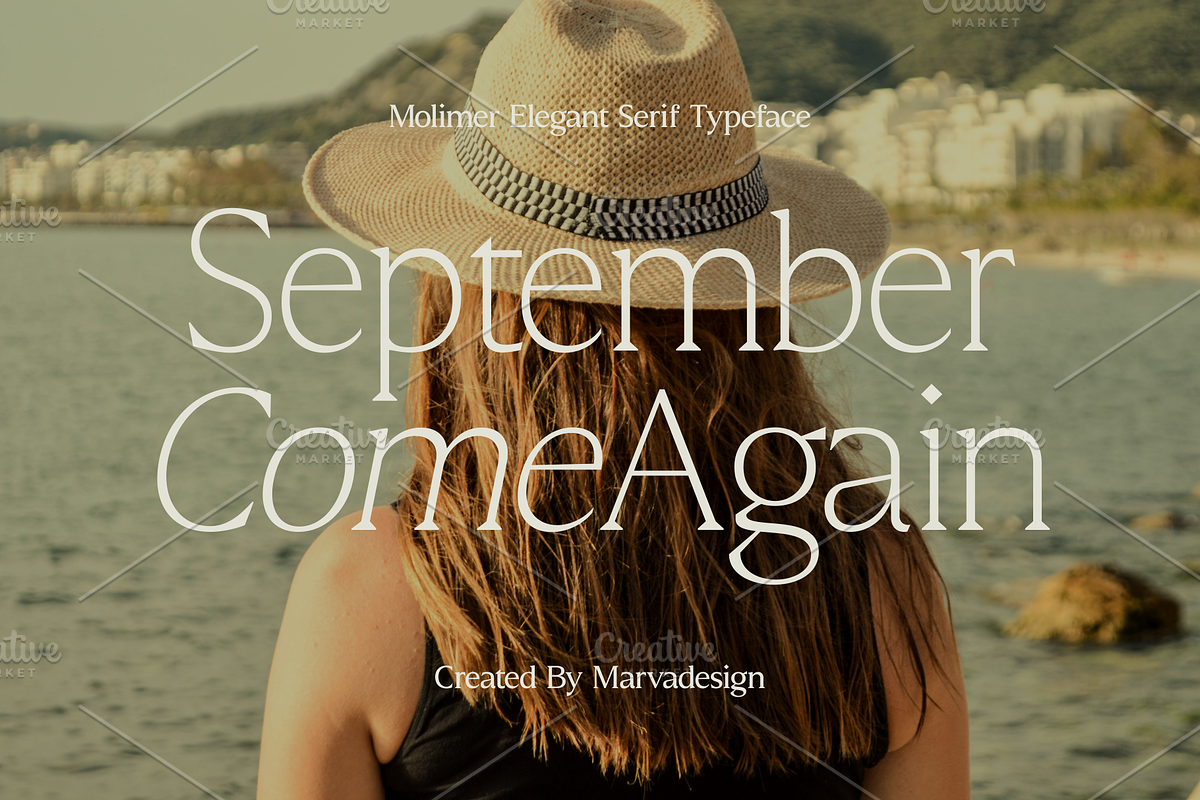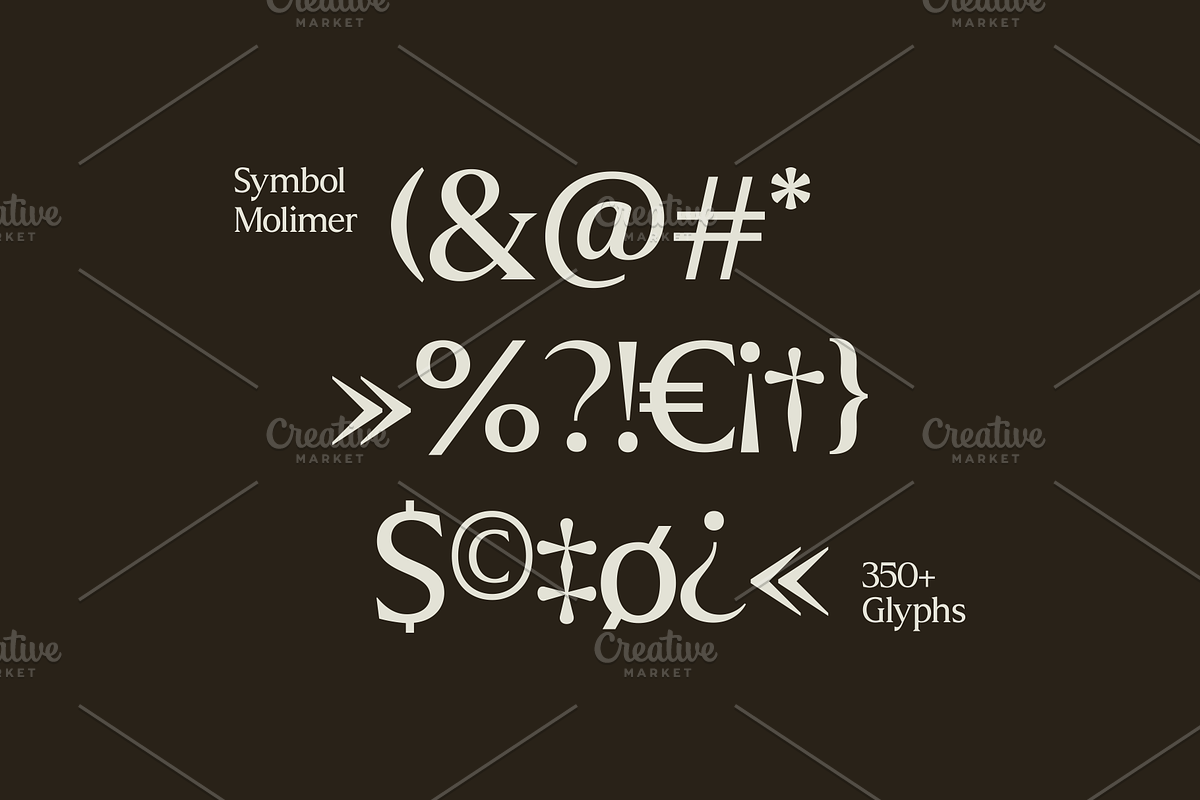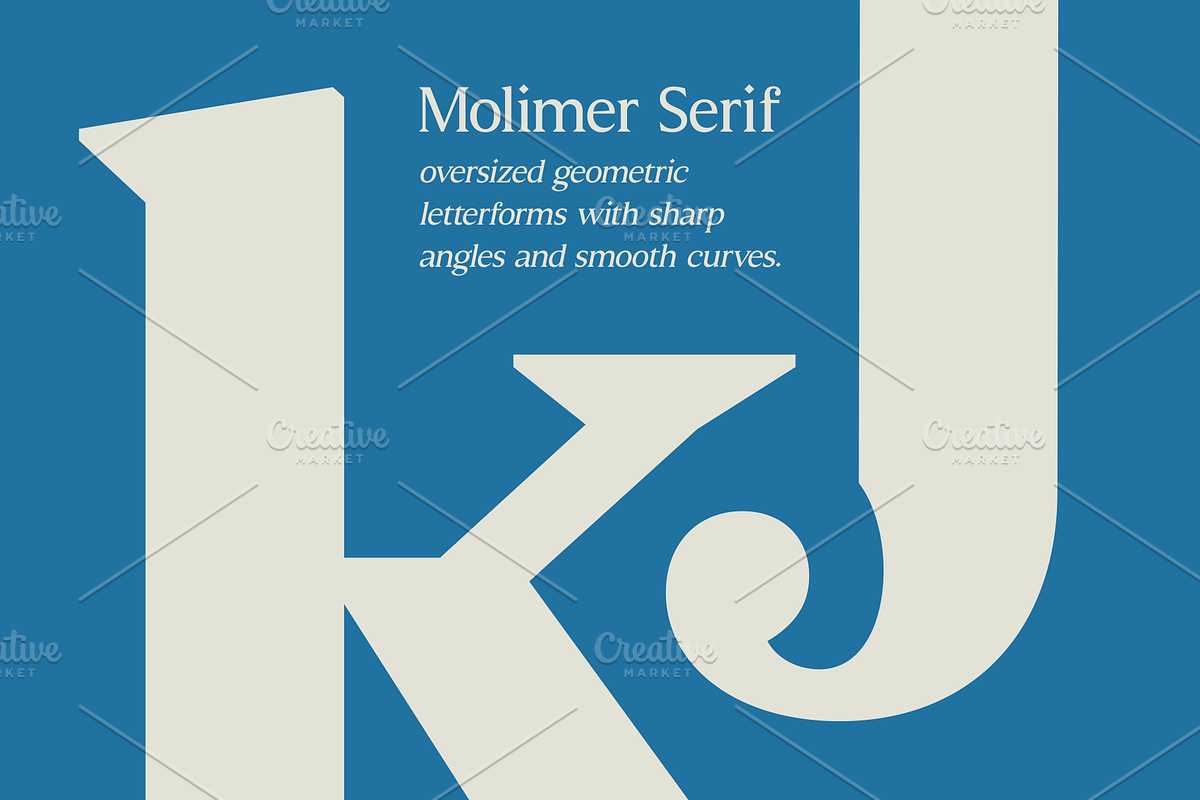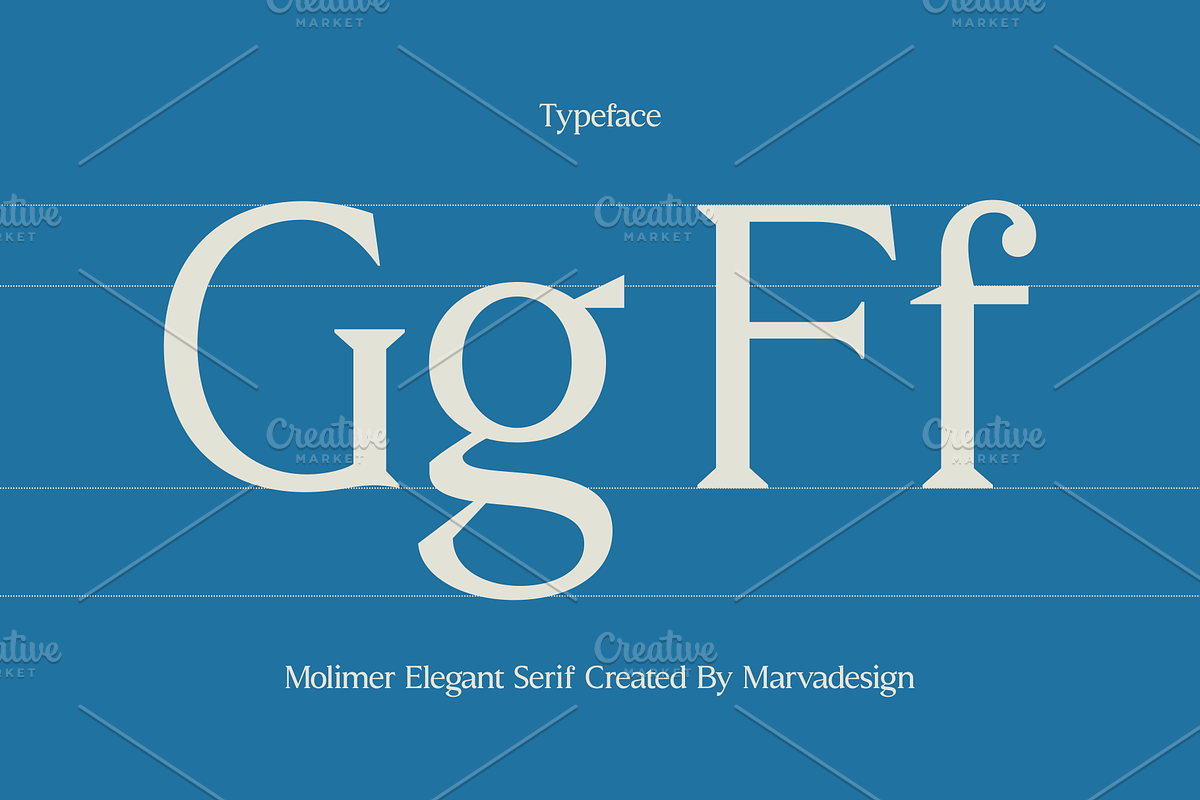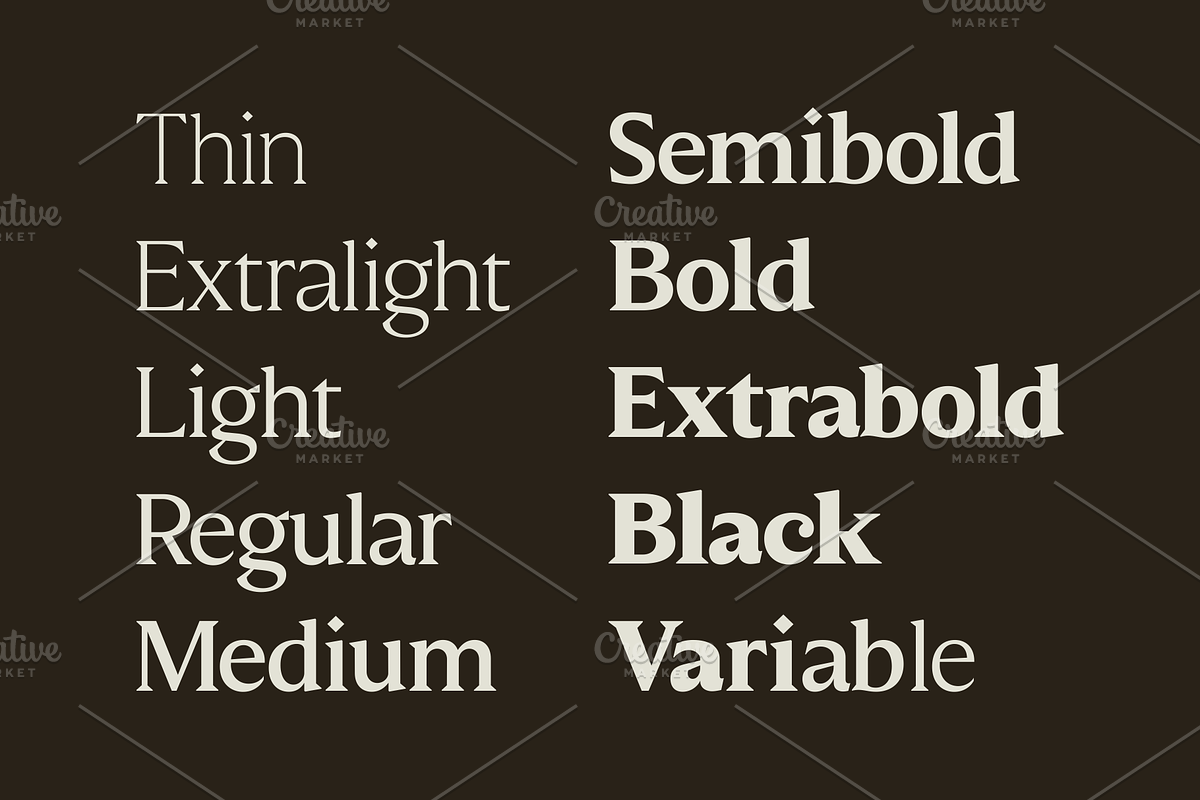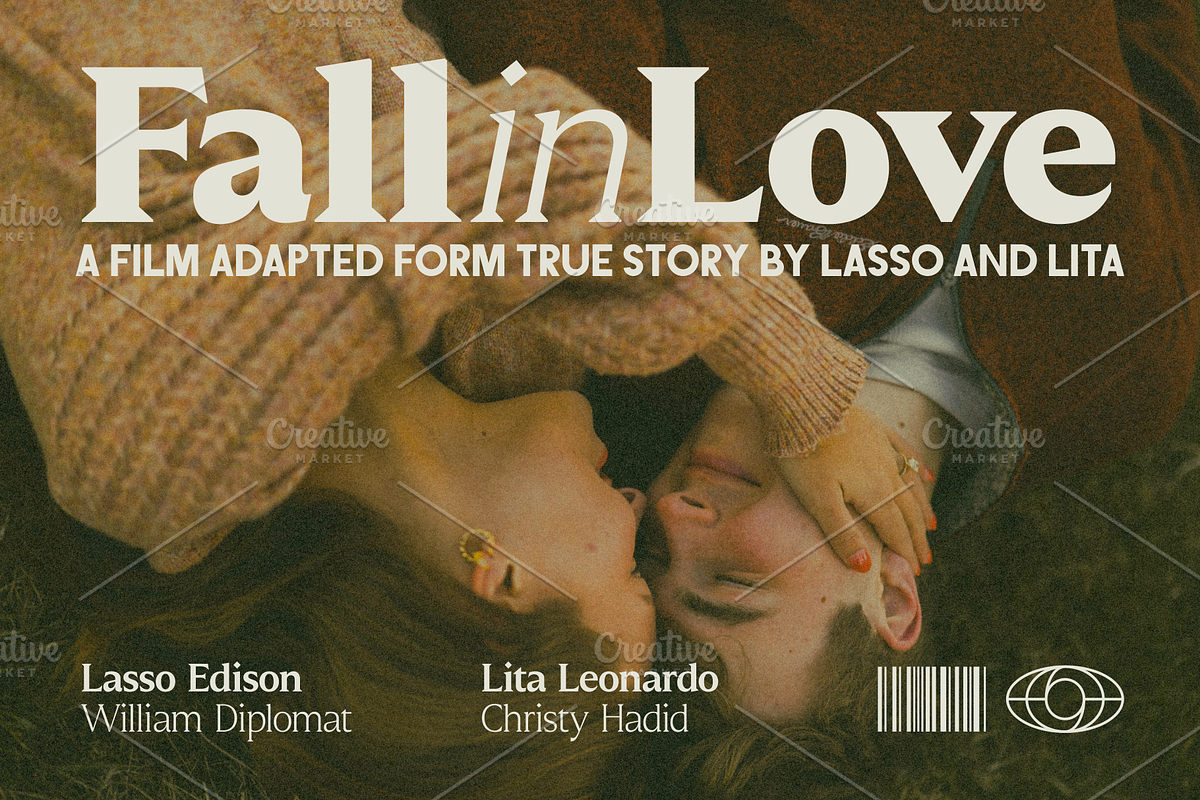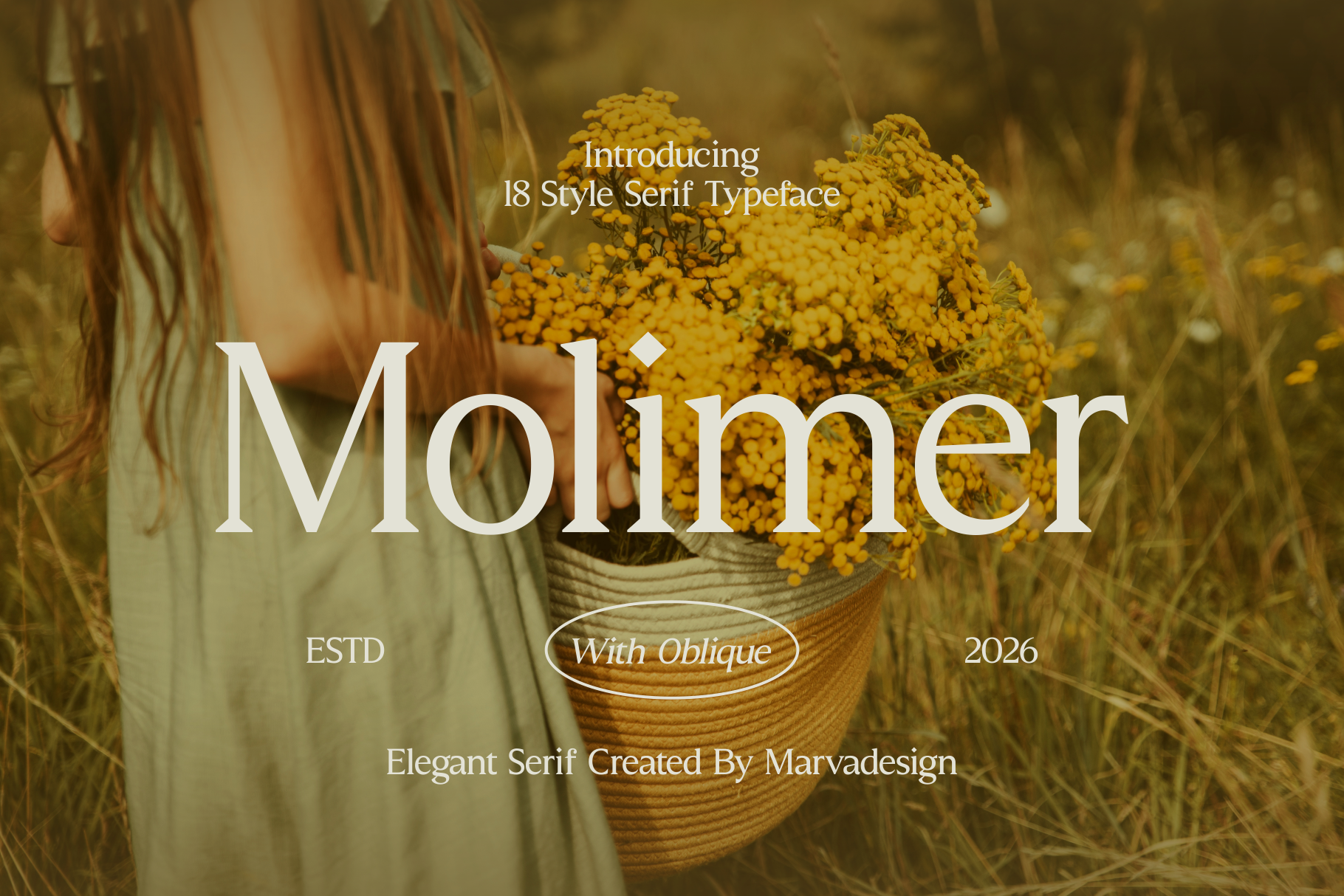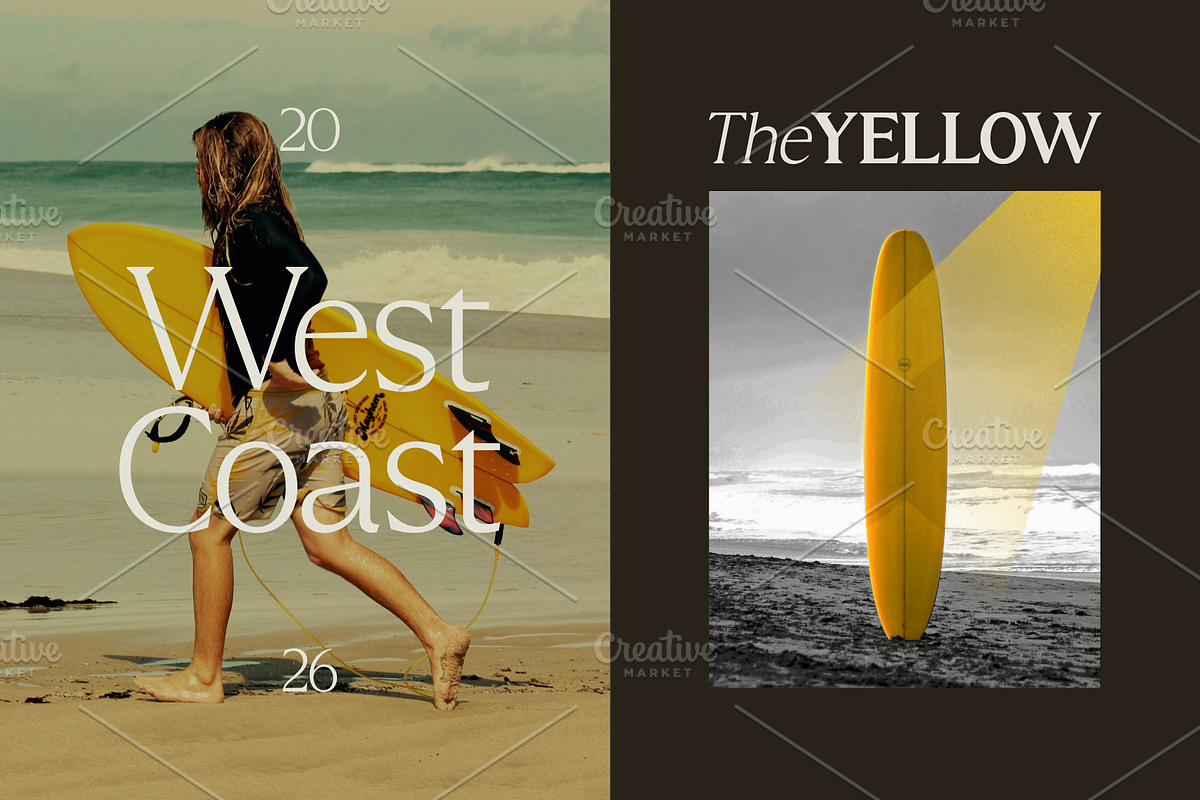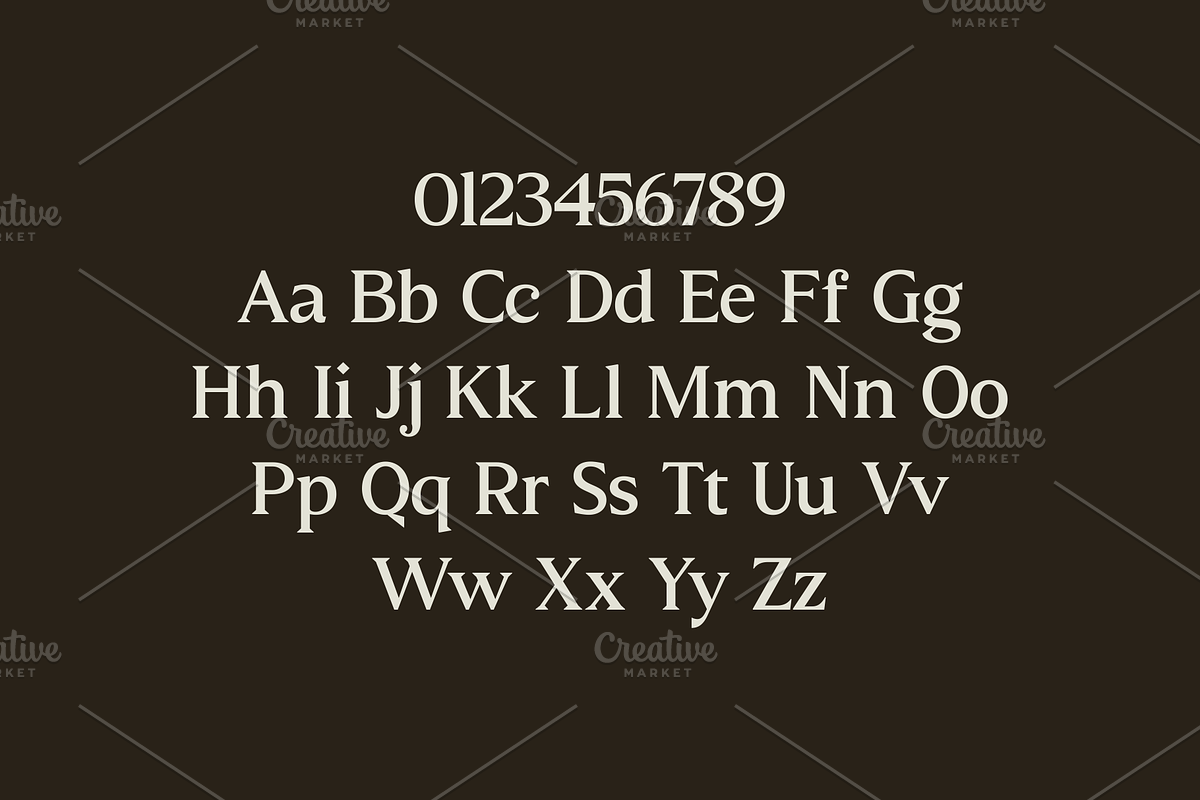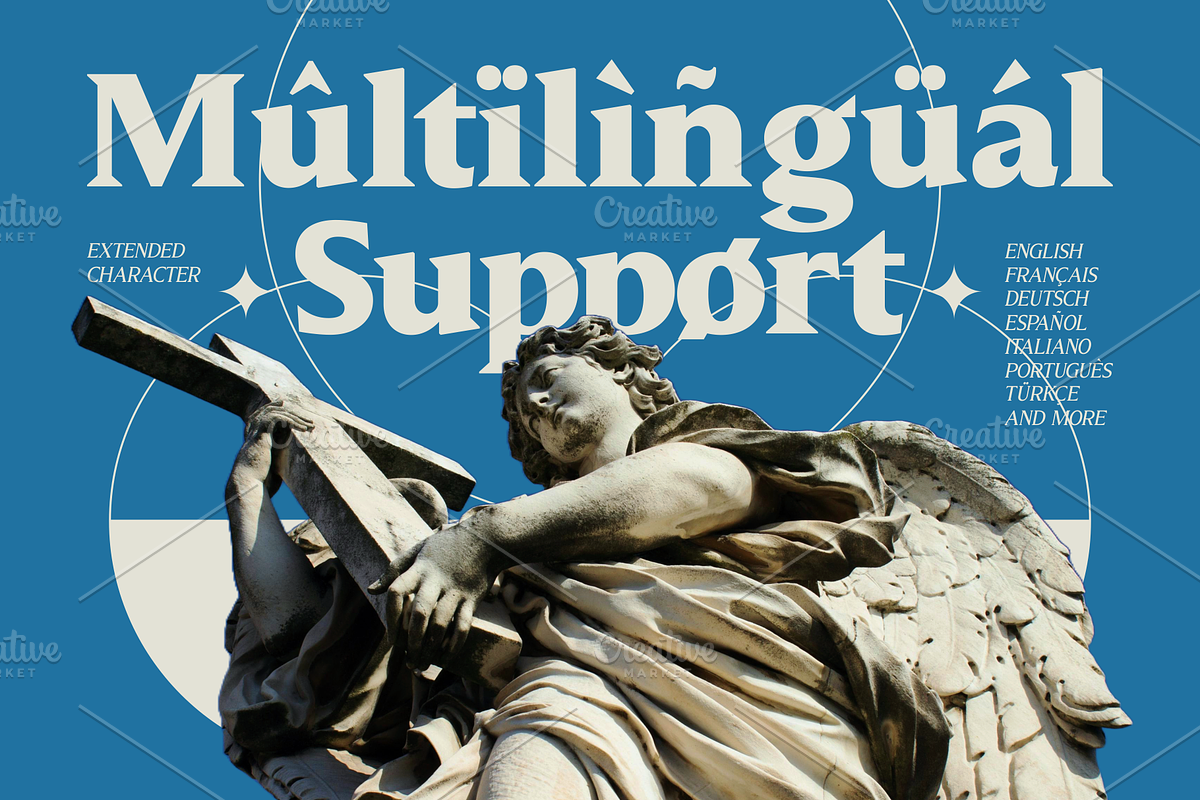
Molimer Family Serif Font
Molimer is an elegant high-contrast serif typeface that combines refined editorial sophistication with a distinctive geometric edge. Its letterforms feature dramatic stroke contrast, sharp angular serifs, sculpted terminals, graceful curves, and expressive proportions that create a luxurious yet contemporary visual identity. Available in an extensive 18-style family with weights ranging from Thin to Black and matching italics, Molimer offers both delicate elegance and strong display impact. Its extended character set, multilingual support, and 350+ glyphs make it versatile for fashion editorials, luxury branding, magazine layouts, posters, film titles, beauty packaging, and sophisticated advertising.
The styles include
Thin
Thin Italic
ExtraLight
ExtraLight Italic
Light
Light Italic
Regular Italic
Medium
Medium Italic
SemiBold
SemiBold Italic
Bold
Bold Italic
Extra Bold
Extra Bold Italic
Black
Black Italic
Variable
Available Character Set
Lowercase
Ligature